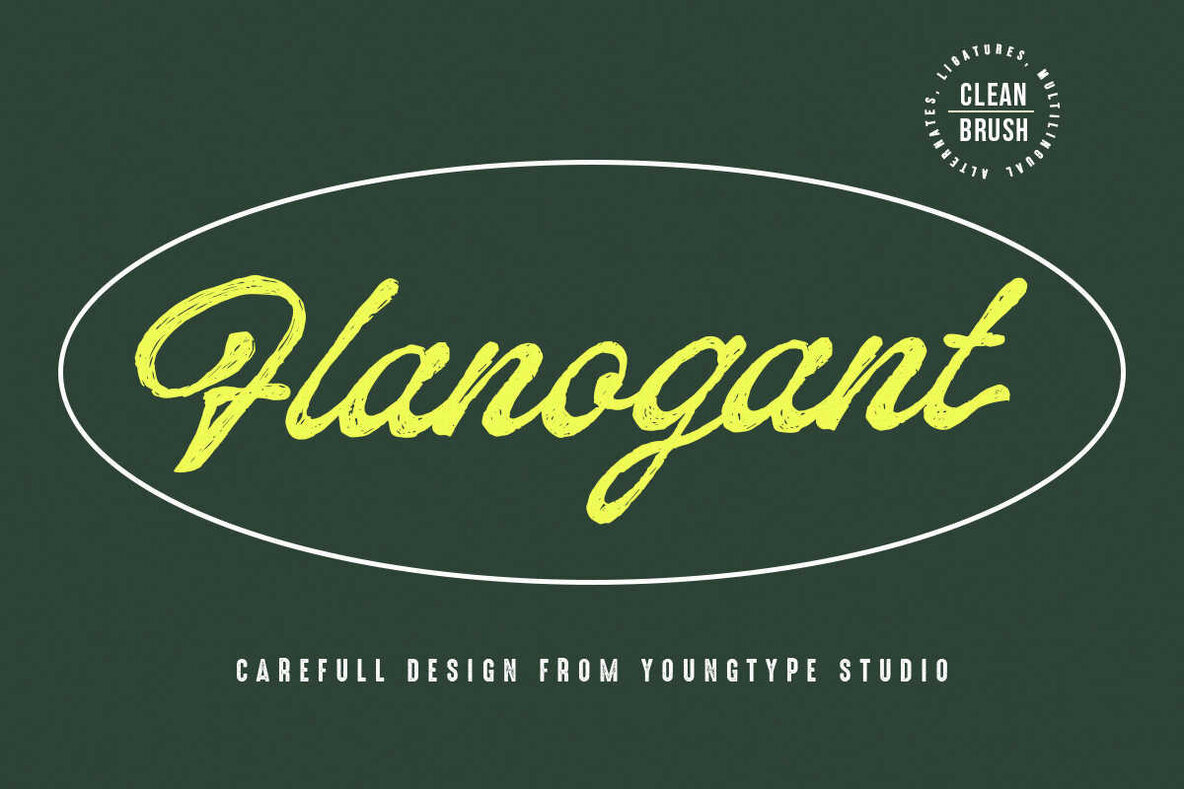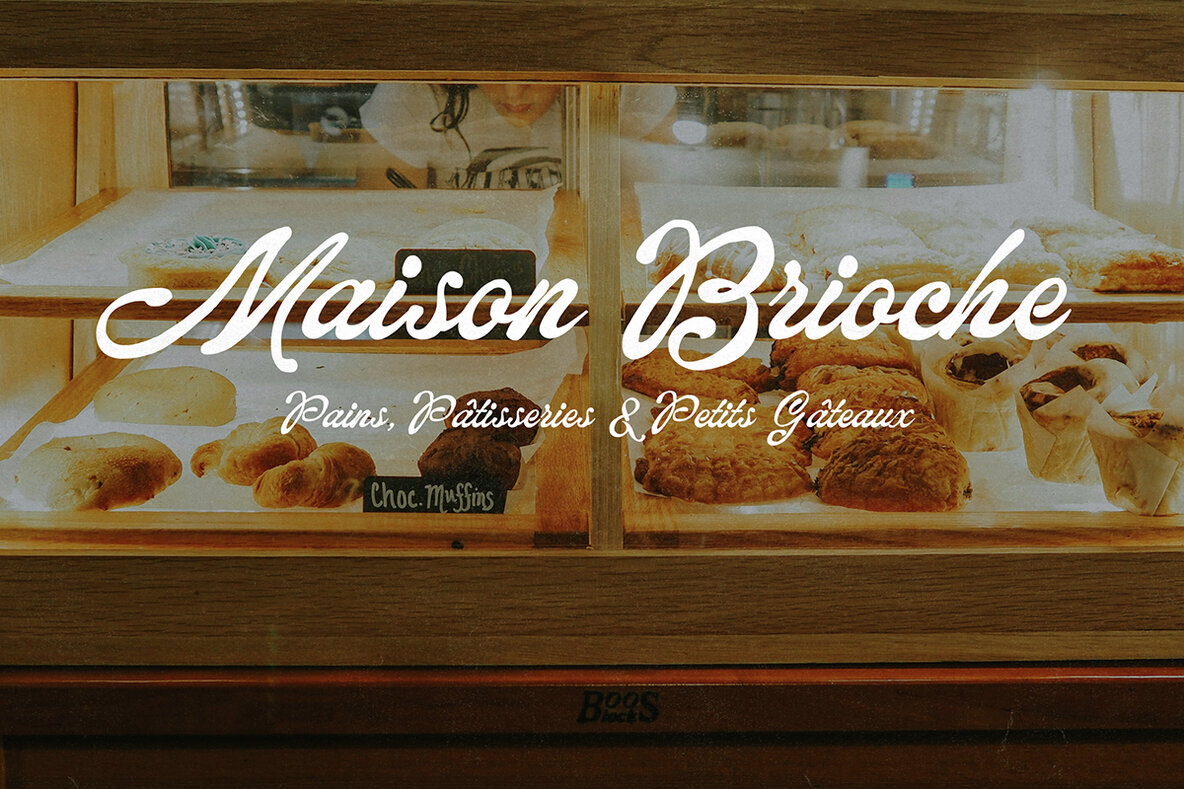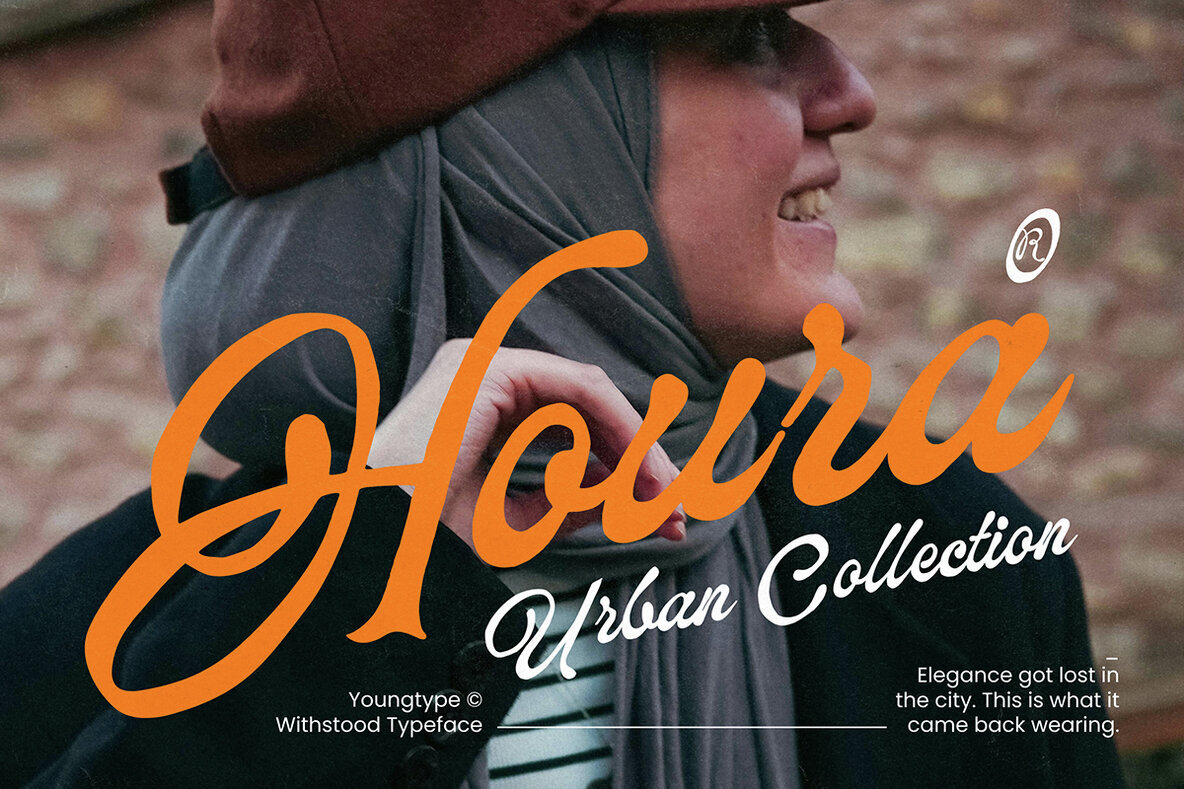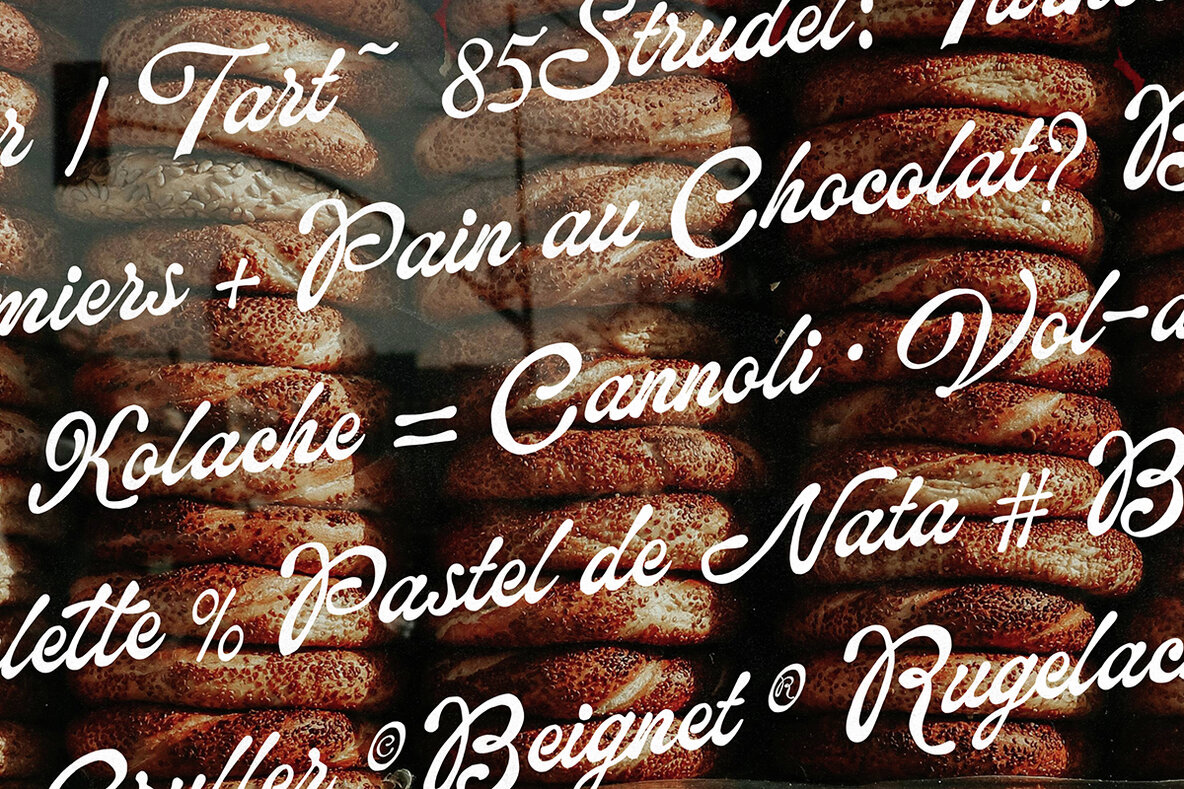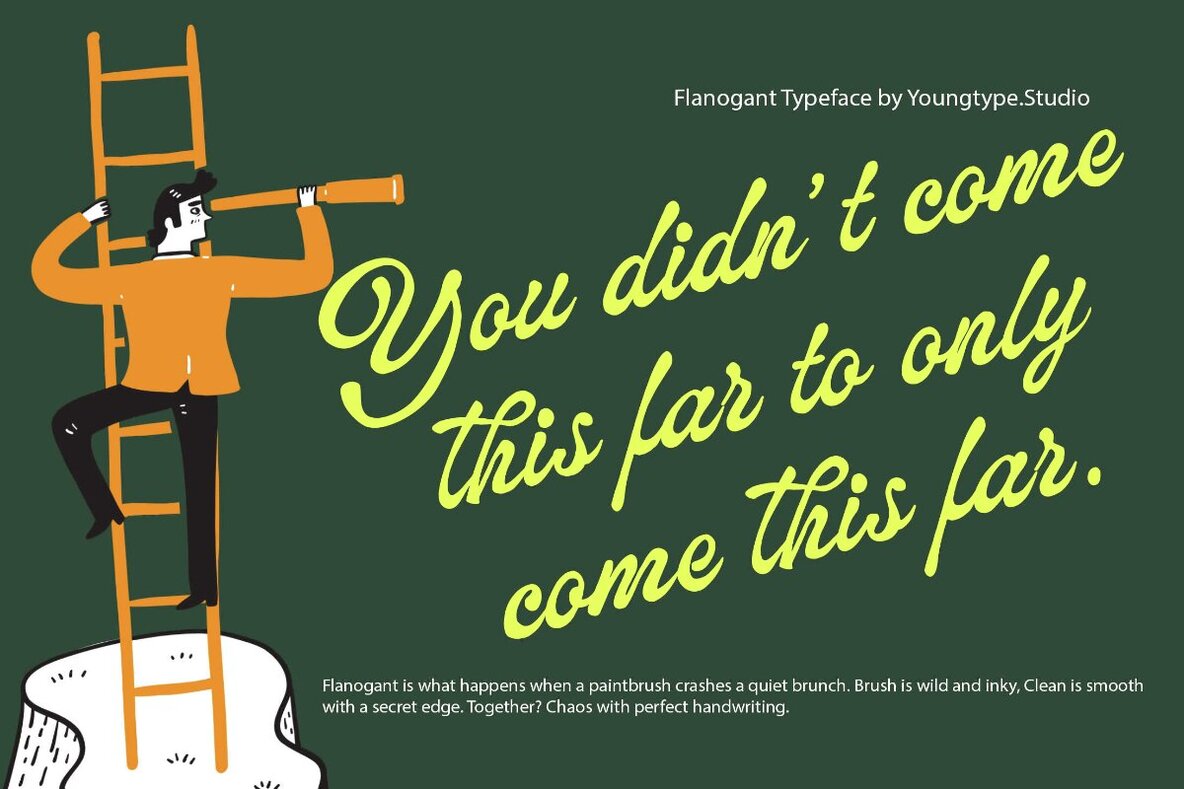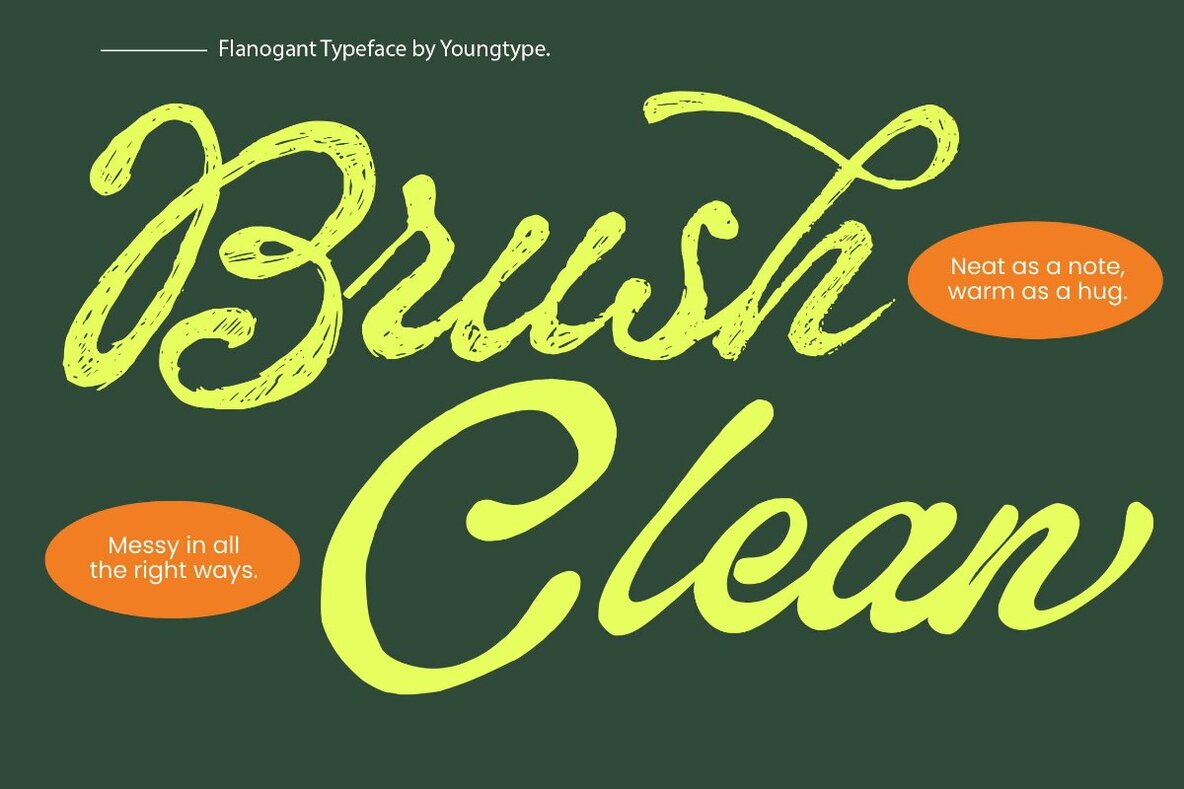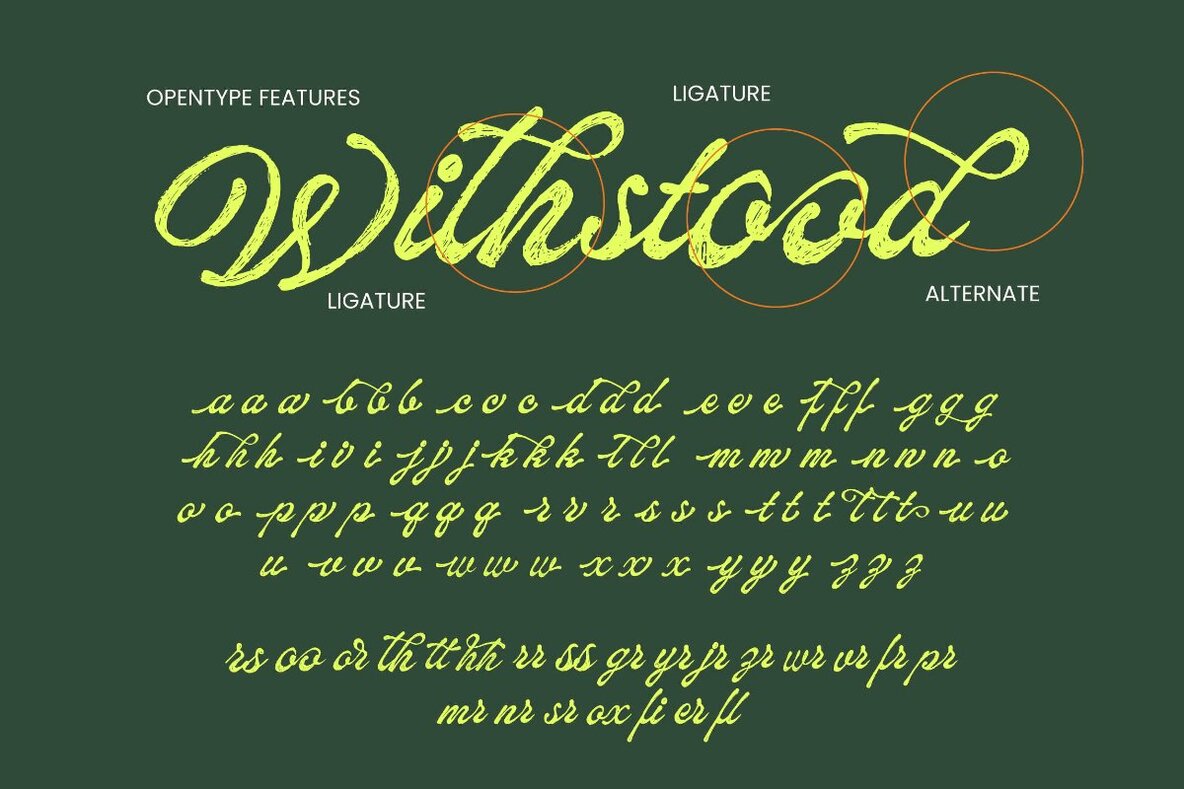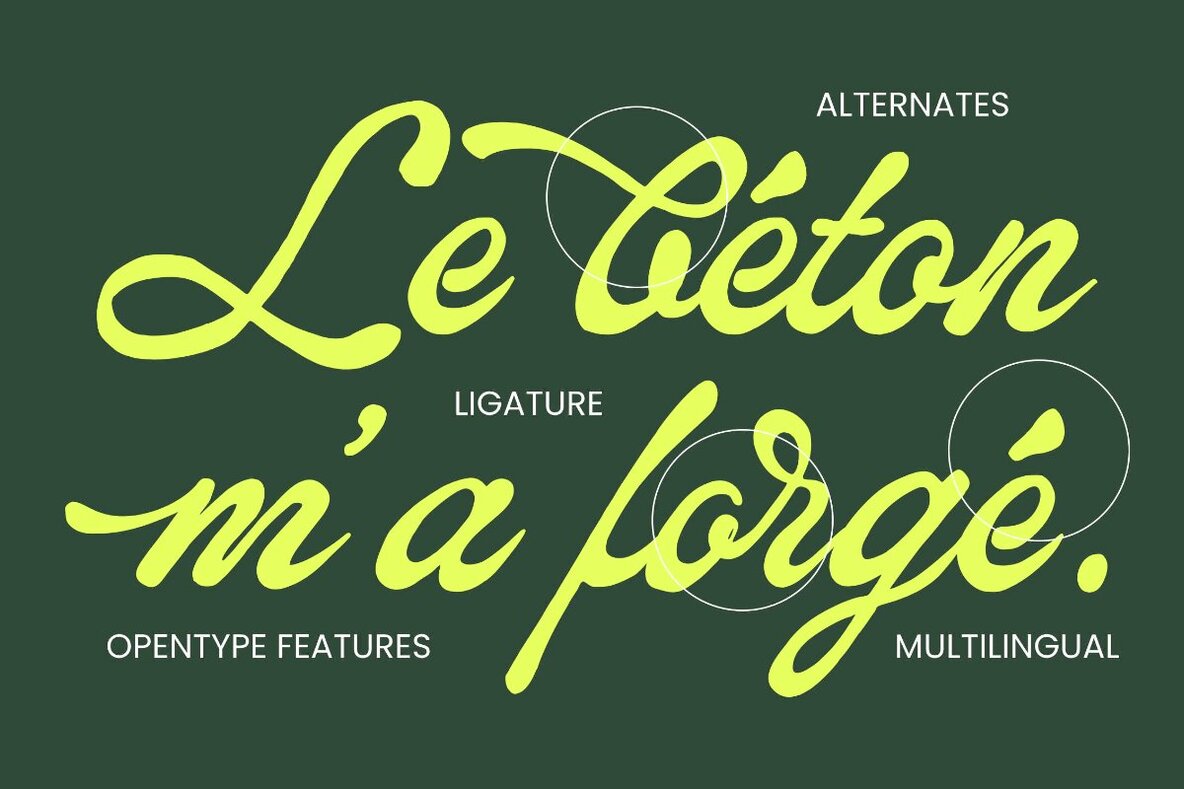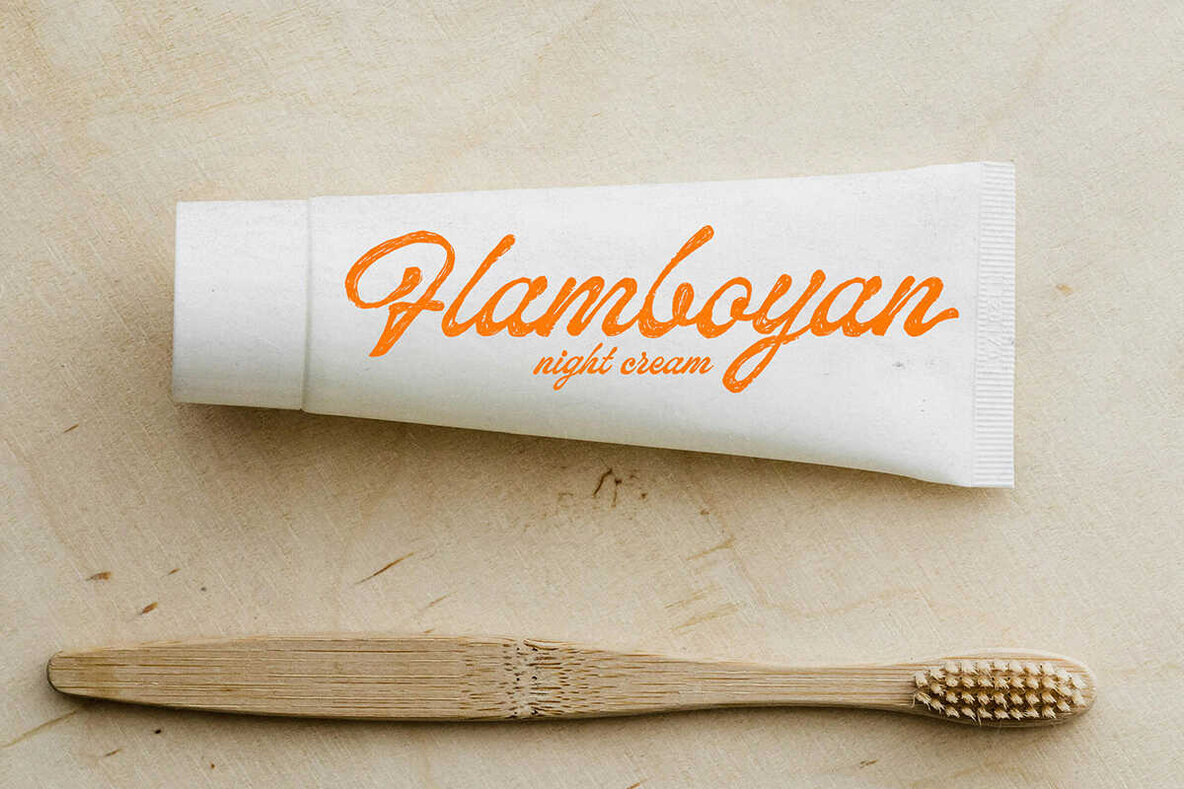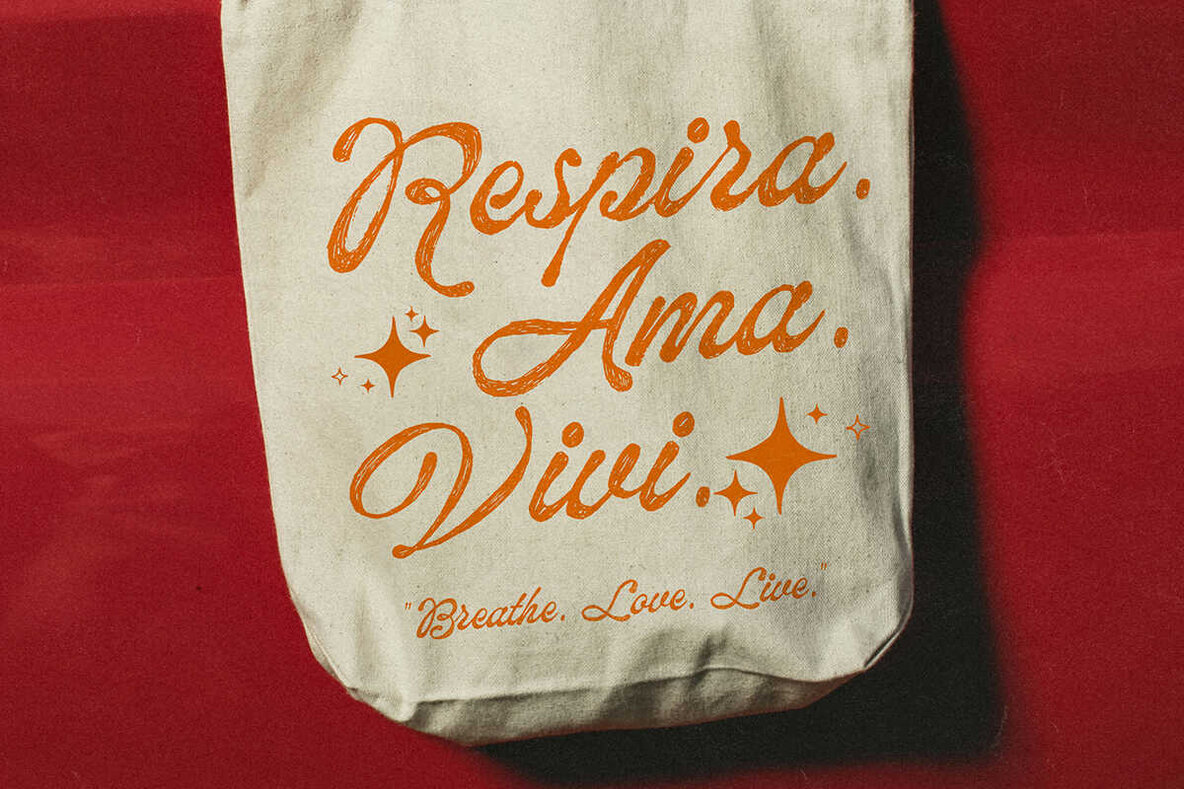
Flanogant Font
Explore the dynamic and expressive Flanogant type family, which brings an energetic touch to your design projects. This family captures the impact of hand-drawn brushwork, merging raw creativity with a modern flair. With two lively brush styles complemented by a clean counterpart, Flanogant excels in providing both texture and readability. Ideal for a range of design applications such as branding, packaging, posters, and social media graphics, this type family injects a bold and confident character into any project.Flanogant Type Family